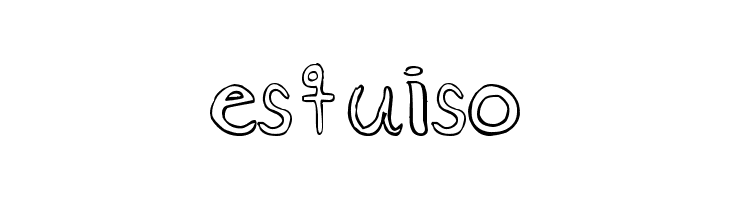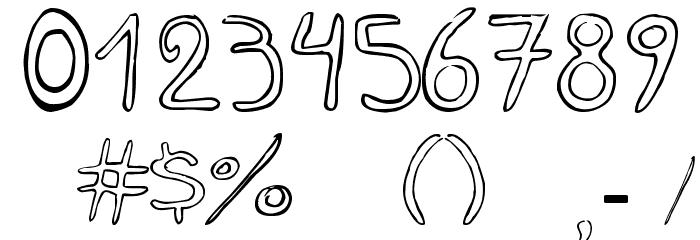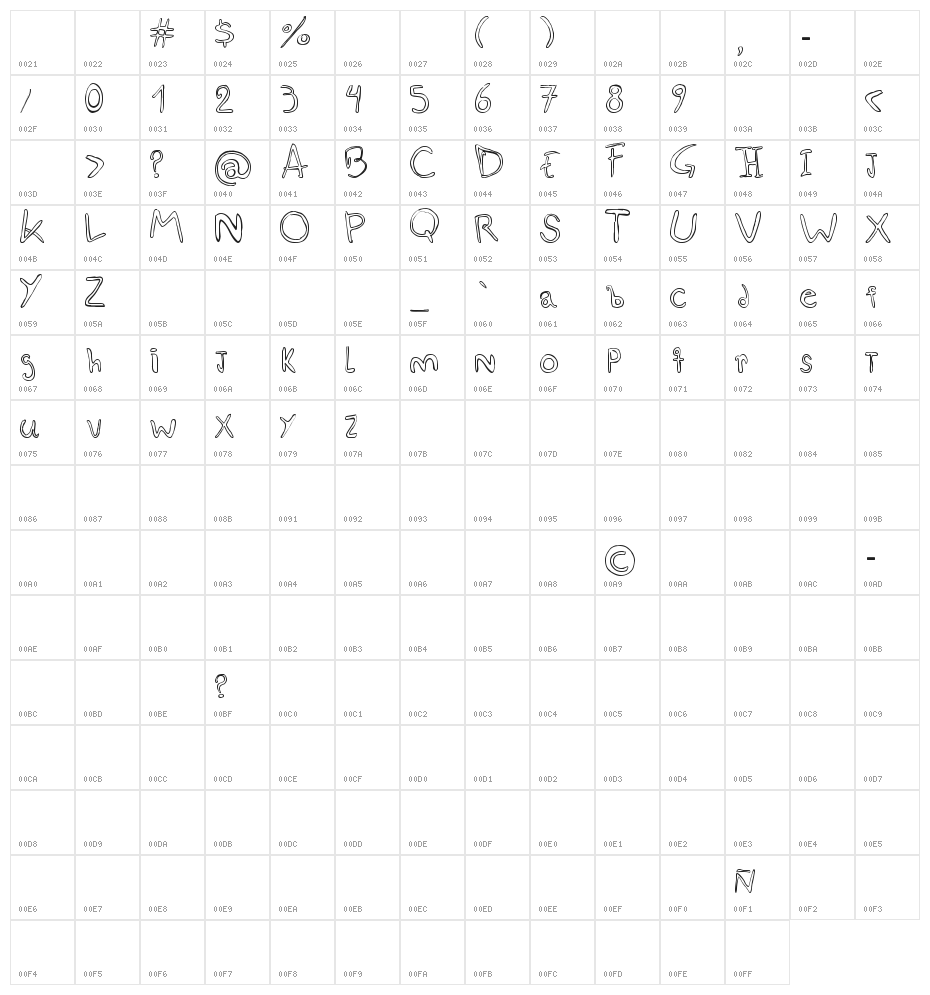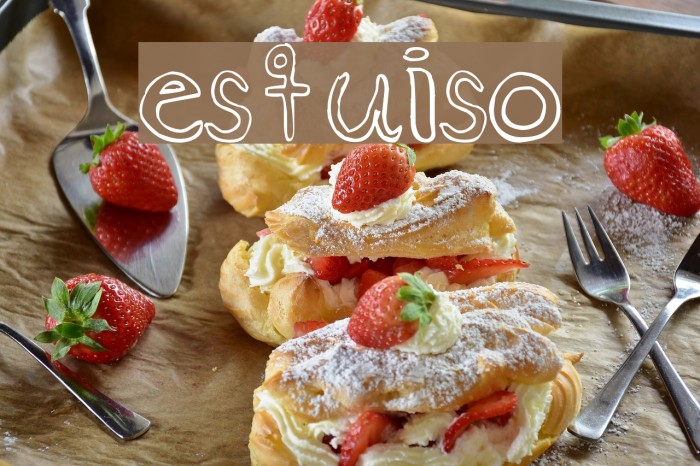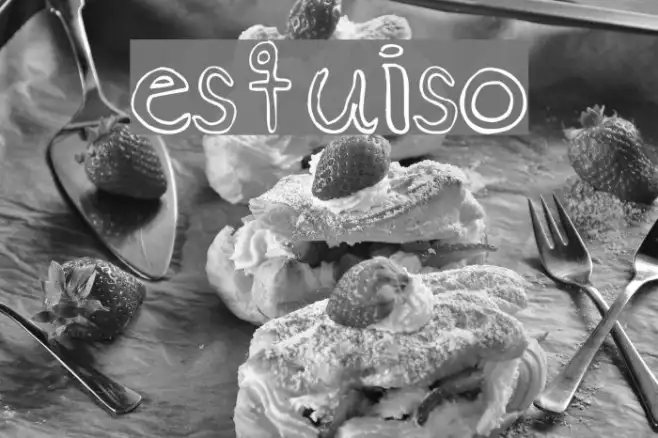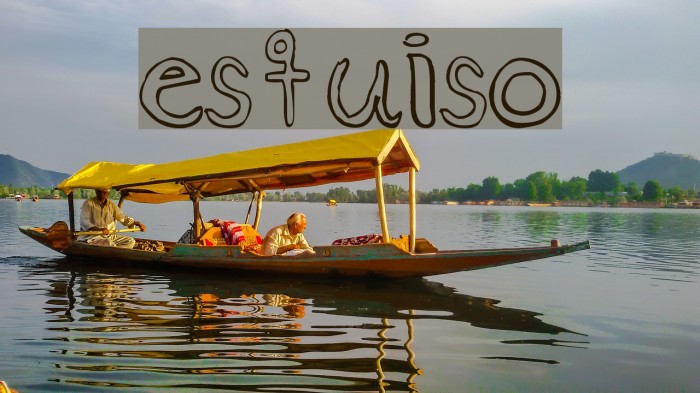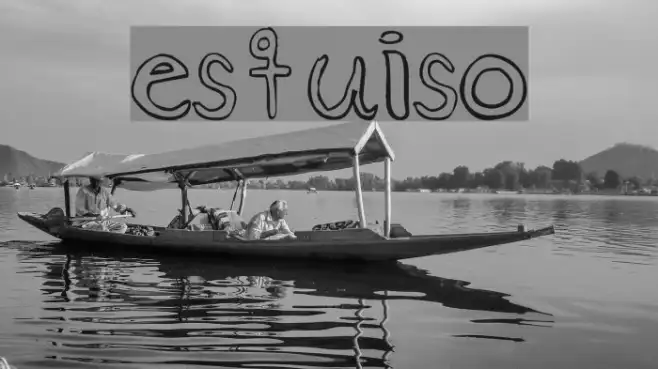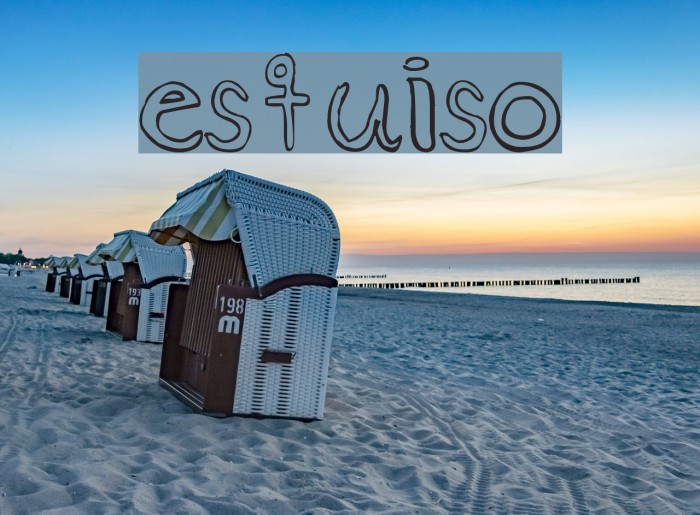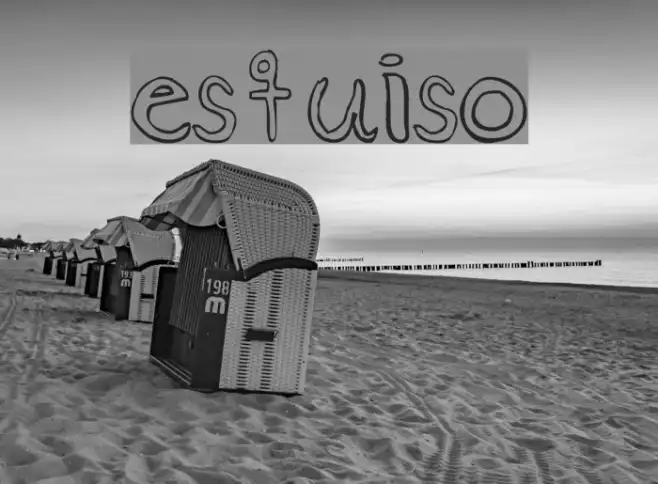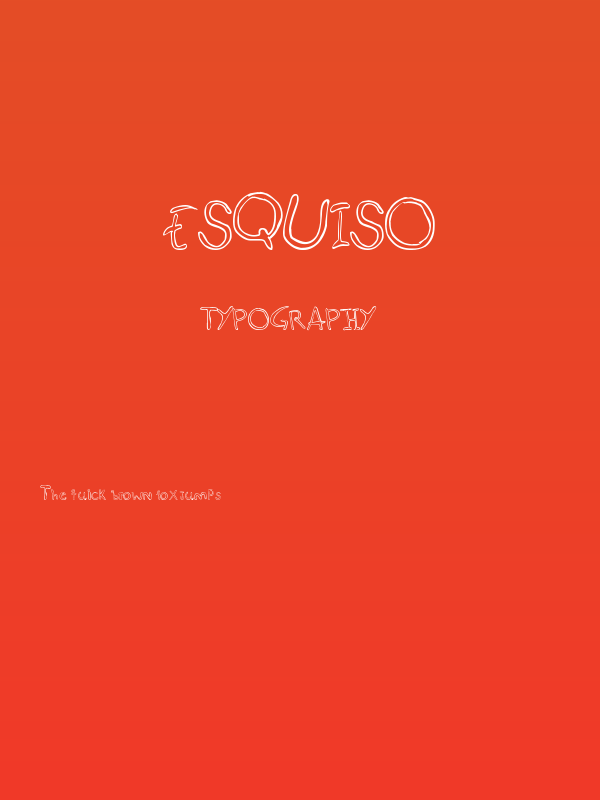
esquiso Font
esquiso Description
This font features a playful and whimsical design, characterized by its hand-drawn appearance and uneven strokes. The letters have a casual, informal style, with varying line thicknesses that add a dynamic and lively feel. The uppercase and lowercase letters maintain a consistent style, with rounded edges and a slightly irregular baseline that enhances the font's quirky personality. The numerals and special characters follow the same playful aesthetic, making the font suitable for creative and informal projects. Its unique style captures attention and adds a touch of fun to any design.
| Proposed Projects | Ideal for children's books, greeting cards, playful branding, and creative posters. |